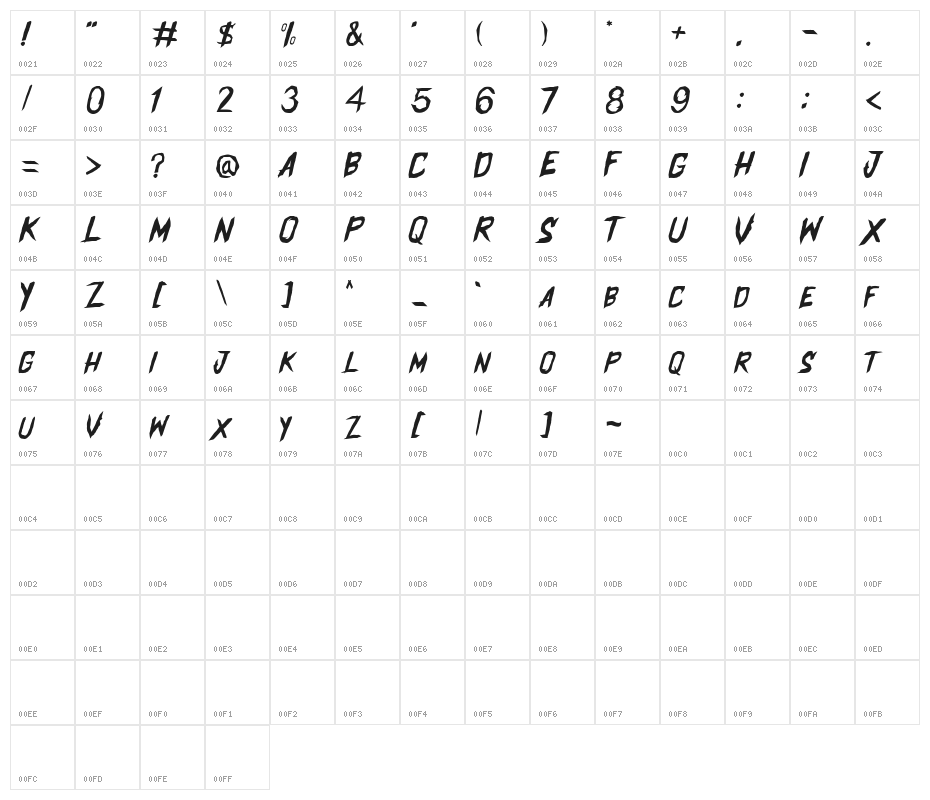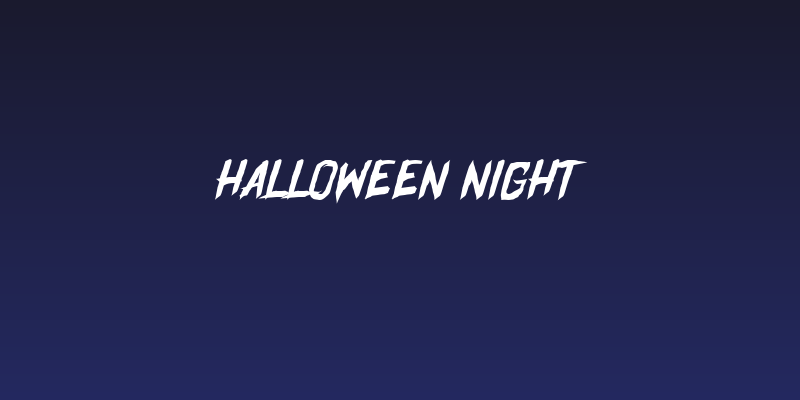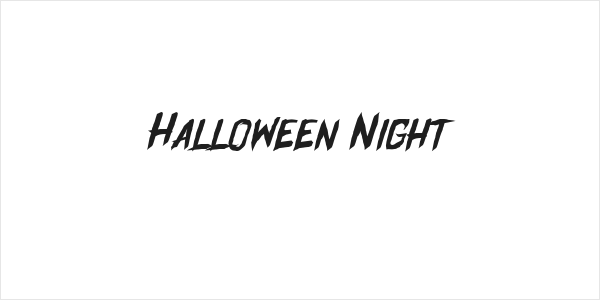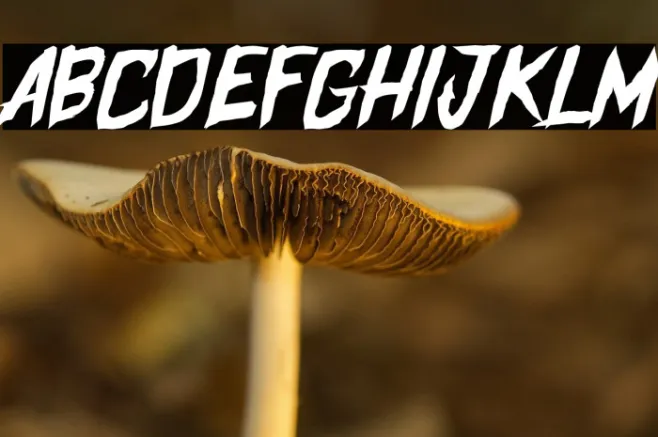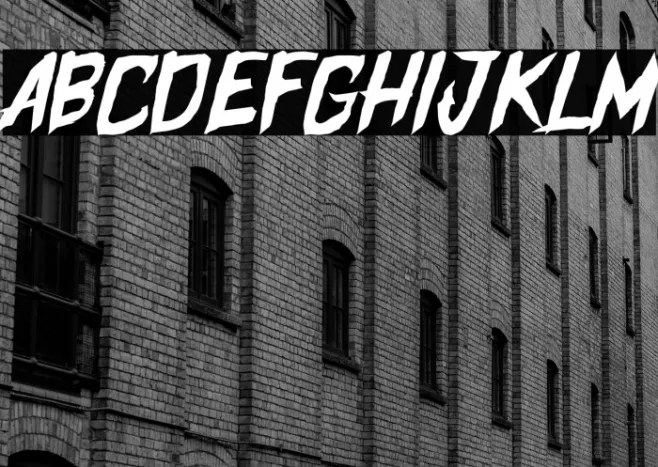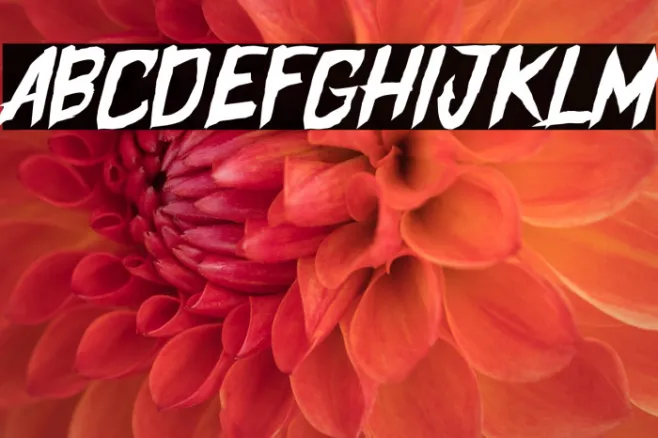
Halloween Night Font
Halloween Night Description
This font features a bold and jagged style, reminiscent of classic horror and Halloween themes. The characters are sharply angled with irregular edges, giving a sense of movement and energy. The uppercase and lowercase letters maintain a consistent style, with exaggerated serifs and a hand-drawn appearance. Numbers and special characters follow the same aesthetic, ensuring a cohesive look across all text. The font's unique design makes it ideal for creating an eerie and unsettling atmosphere, perfect for themed events or creative projects that require a touch of the macabre.
| Proposed Projects | Ideal for Halloween event posters, horror movie titles, themed party invitations, and spooky merchandise designs. |